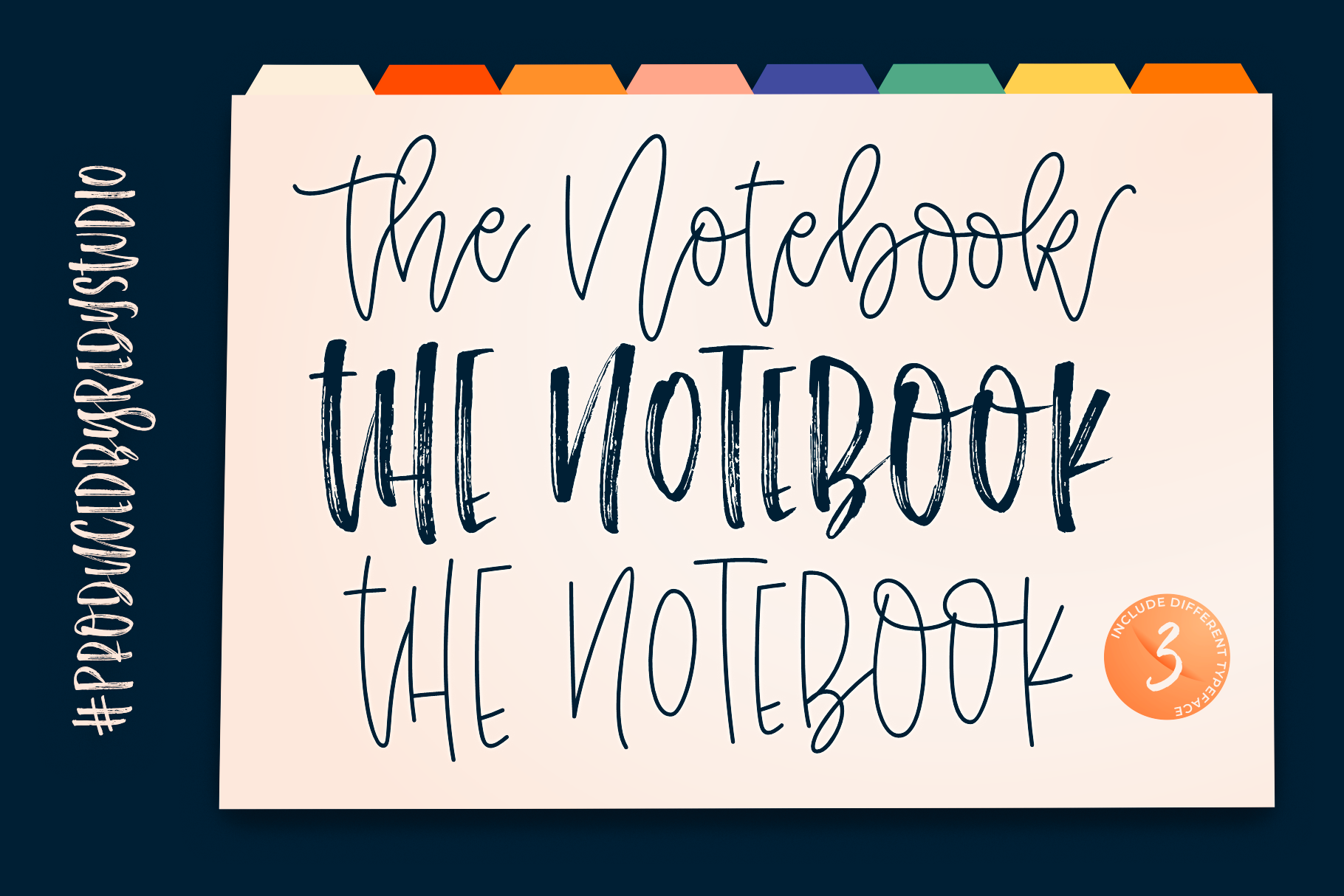
The Notebook Collection Fonts
Playing with fonts has never been so much fun! With this pack, you get three super adorable fonts that will allow you to make your creative juices flow! The Notebook Collection Fonts features 3 different styles, Script, Brush, and Sans all in one collection. Create an eye-catching unique look for your projects with the new collection of playful DIY fonts. Perfect for labels, quotes, posters, book covers, scrapbooking, tags and so much more! Are you looking for a way to reignite your creativity? Look no further than The Notebook Collection Fonts.
The Notebook Collection features:
- A full set of upper & lowercase characters
- A full set of upper & lowercase characters (Alternates)